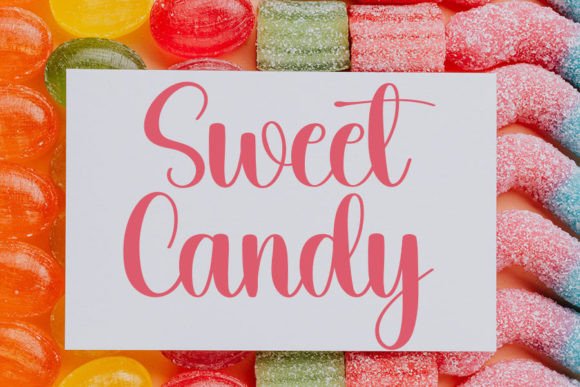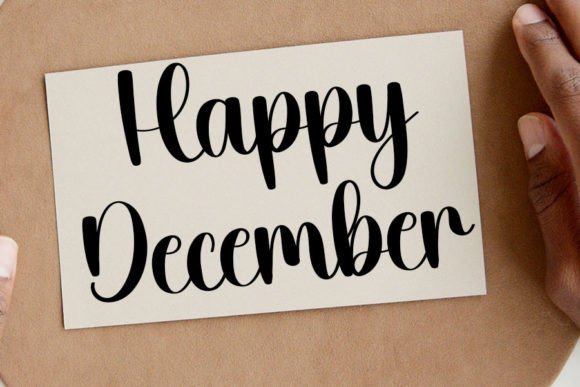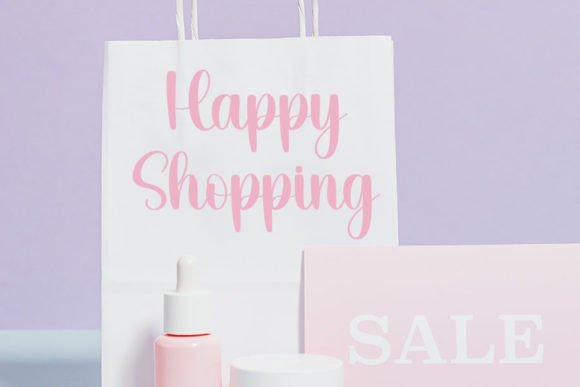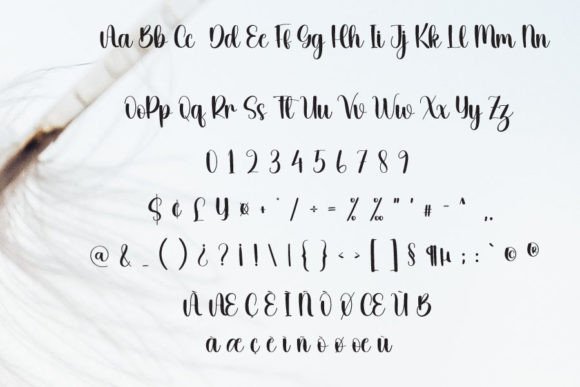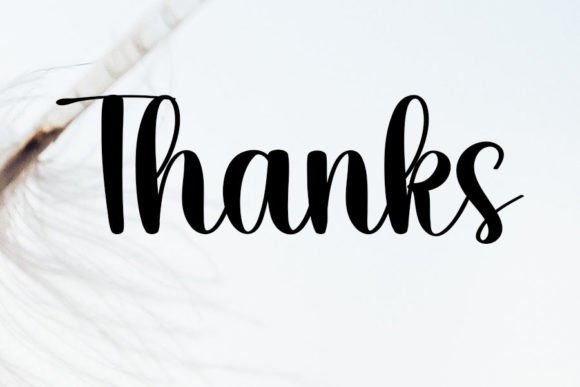
Grinch Font
About Grinch Font
Grinch Font is a stylish handwritten typeface that combines contemporary vibes with timeless classic calligraphy. It offers an impeccable form with balanced and varied strokes. This font is crafted to enhance the beauty of your creative projects with elegance and sophistication.
Elegant Design Inspired by Classic Calligraphy
GrinchFont draws inspiration from classic calligraphy styles but adds a modern touch. The smooth and flowing strokes create a sophisticated atmosphere, making it perfect for many design uses. Its versatile style suits both formal and casual projects.
Versatility Across Various Creative Projects
You can use GrinchFont for a wide range of applications. It shines on wedding invitations, thank you cards, and greeting cards. Additionally, it works beautifully for logos and business cards, offering a unique, handcrafted feel. Social media posts, branding materials, and packaging designs also benefit from its stylish handwritten look.
Why Choose Grinch Font?
Choosing Grinchfont means choosing elegance and style. It adds a personal touch and timeless appeal to your work. Furthermore, the font’s balanced letterforms and varied strokes ensure high readability and visual interest. This makes it a valuable asset for designers wanting to make their projects stand out.